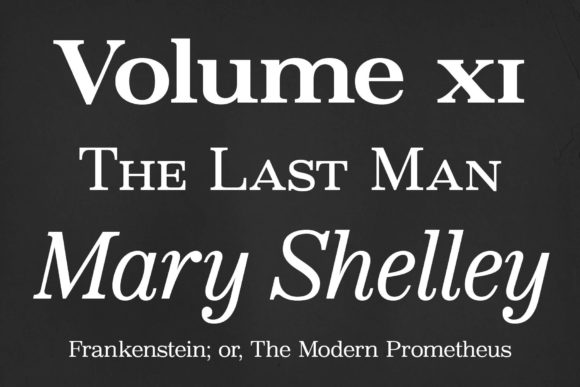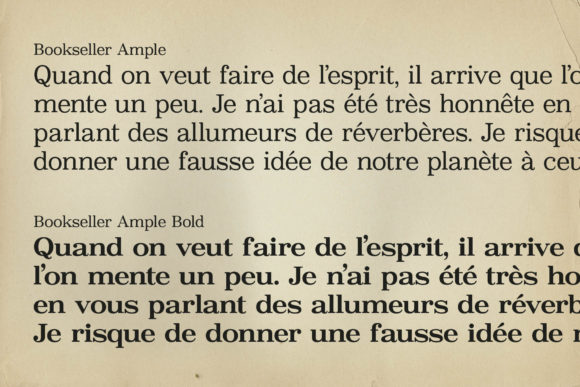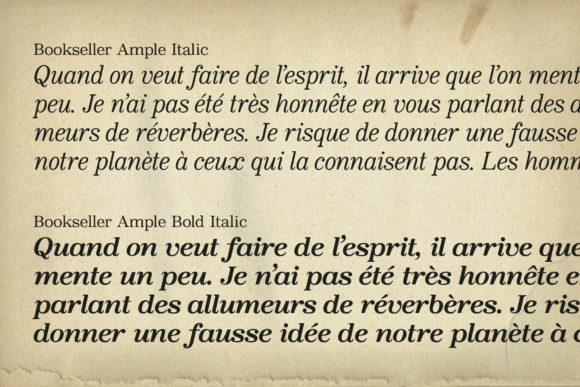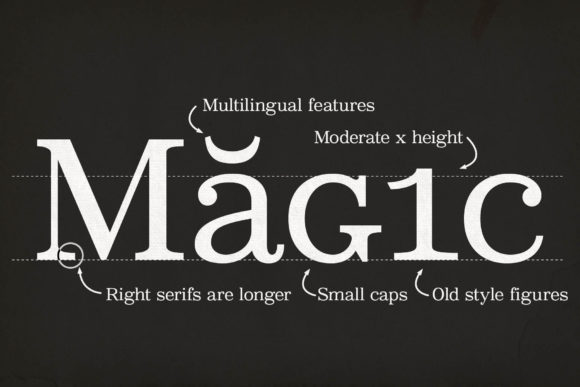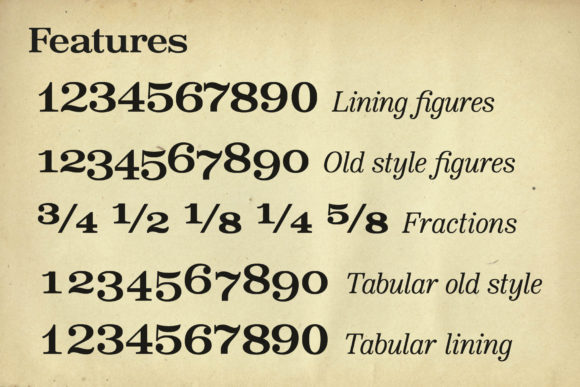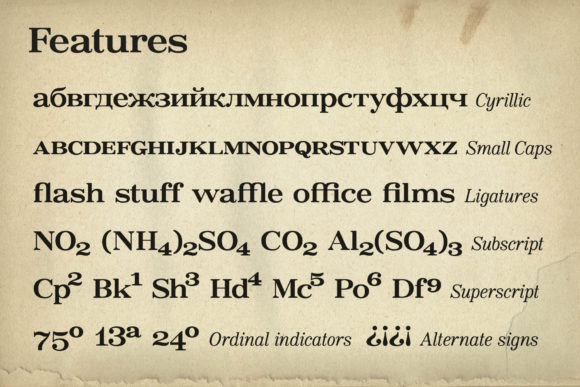
Uncovering the Charm of the Written Word
There’s something magical about holding a well-loved book in your hands, feeling the weight of its pages, and losing yourself in the stories within. For designers, this feeling can be replicated through the thoughtful selection of typography. One font that embodies this sense of nostalgia and tradition is Bookseller Bk Ample Font.
Designed specifically for small text sizes, Bookseller Bk Ample Font boasts a distinctive serif style that evokes the feel of old books. Its wide look and solid shapes make it perfect for saving precious text lines, while its range of features, including small caps and old-style figures, ensure that your text remains clear and readable.
For designers working on books, magazines, or editorial projects, Bookseller Bk Ample Font is a valuable addition to their toolkit. Its unique character and versatility make it an ideal choice for adding a touch of warmth and personality to your work.
Bookseller Bk Ample Font Key Features
- Font Family: Bookseller Bk Ample, a serif font designed for body text and reading materials.
- Font Size: Designed to be used at font sizes ranging from 10pt to 14pt for optimal readability.
- Unique Characteristics: Features a classic, elegant design with subtle flair and distinctive letterforms, making it ideal for book publishing, academic writing, and other reading materials.
Designer Review: Bookseller Bk Ample Font
Overall, I have mixed feelings about Bookseller Bk Ample Font. Let’s start with what works well: ✨ the font’s nostalgic feel is reminiscent of classic bookstores and libraries. It’s perfect for projects that need a touch of vintage charm. The font is also highly legible, even at smaller font sizes, which is a must-have for any book-related design.
✨ Another aspect I appreciate is the font’s versatility. It comes in a range of weights, from light to bold, allowing designers to create a cohesive look across various elements of a design. This makes it an excellent choice for book covers, marketing materials, or even website design.
- ⚠️ The font’s aesthetic may be too nostalgic for some designers, making it feel dated or overused. It’s essential to balance the font’s vintage feel with modern design elements to avoid this issue.
- ⚠️ The font’s limited expressiveness may make it less suitable for projects that require a wide range of emotions or tones. For example, it may not be the best choice for a design that needs to convey excitement or energy.
In conclusion, Bookseller Bk Ample Font is a solid choice for designers who want to evoke a sense of nostalgia and tradition. However, it may not be the best fit for projects that require a more modern or expressive tone. As with any font, it’s crucial to consider the design’s overall context and balance the font’s strengths and limitations accordingly.
Tips for Getting the Most Out of Bookseller Bk Ample Font
Use Bookseller Bk Ample Font for book covers, book titles, and other literary-related designs.
Combine Bookseller Bk Ample Font with other fonts to create a unique and eye-catching design.
Experiment with different font sizes and styles to create visual interest and hierarchy.
Common Use Cases for Bookseller Bk Ample Font